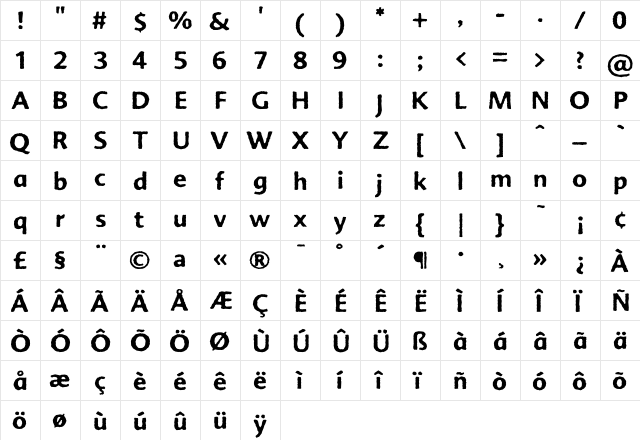
Advert Rough Three Regular Font Preview
Advert Rough Three Regular
Advert Rough Three Regular Font Details
Design Context for Advert Rough Three Typeface
Advert Rough Three trades polish for personality, using distressed and eroded forms to bring grit and attitude to creative work.
A strong fit for alternative music projects, graffiti-adjacent design, and anything that deliberately resists polish.
Pro Tip: Use Advert Rough Three at larger sizes where the texture and irregularity of each letterform can be clearly seen — it loses its character at small sizes.